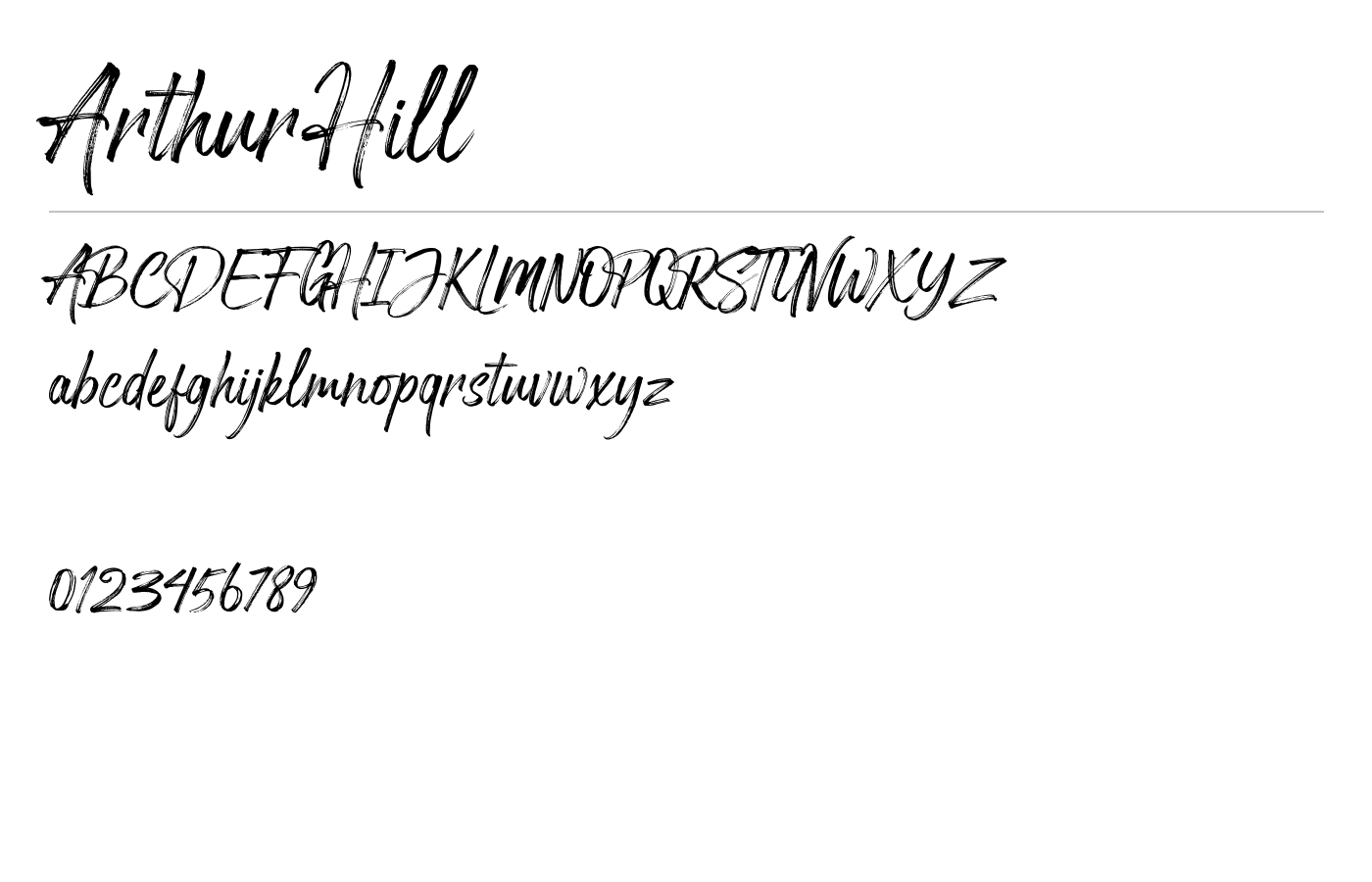
Arthur Hill is a lively, brush-style script font featuring a dynamic, hand-drawn look with slightly textured strokes and a natural, flowing feel. Its slender, tall letterforms with varied stroke widths give it an expressive and artistic personality, making it ideal for creative branding, packaging, and informal headlines where a personal, energetic touch is desired.
Arthur Hill Font
About Arthur Hill Font